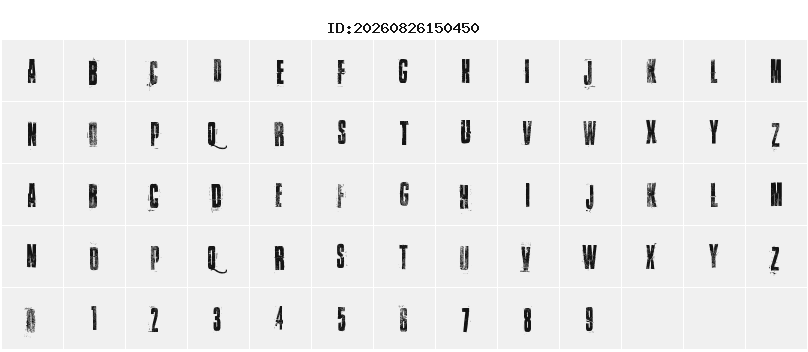
Walk this way Preview
• Font Name: Walk this way
• Full Font Name: Walk this way
• Version: Version 1.00 January 15, 2016, initial release
• Designer: junkohanhero
About Walk this way.otf
Walk this way.otf is a modern, elegant sans-serif font designed for ultimate readability and visual harmony. Perfect for branding, headlines, web design, and print materials.